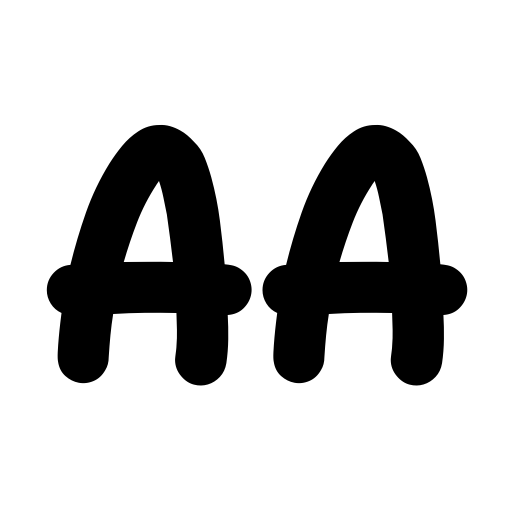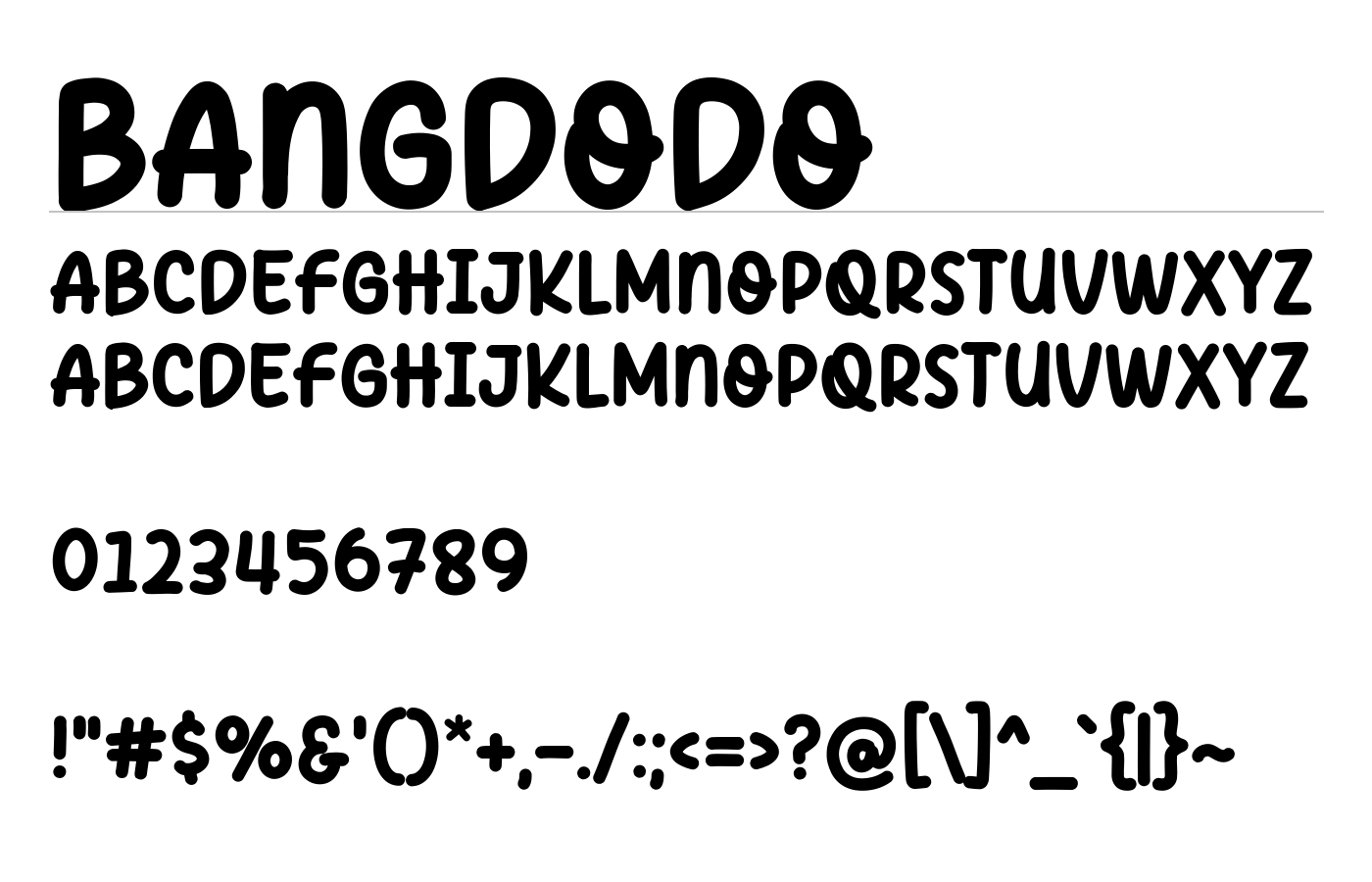
Bangdodo is a playful, rounded sans serif font with a friendly and informal vibe, characterized by its thick, consistent strokes and slightly condensed letterforms. Its bubbly shapes and upright posture make it perfect for casual, fun designs, ideal for children's books, party invitations, or brands aiming for an approachable and cheerful look. This font works best in headlines and display uses where a bold, energetic personality is desired.
Bangdodo Font
About Bangdodo Font